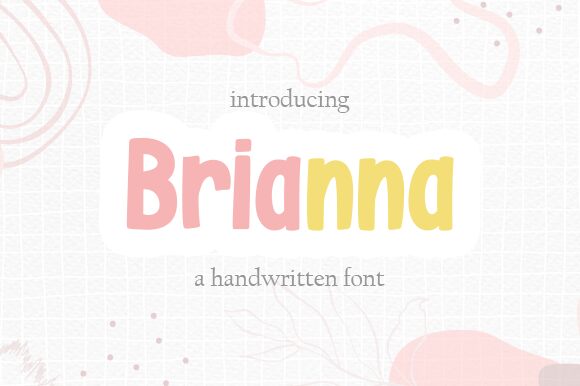
Brianna
Introducing Brianna, a narrowcartoon-style display font from Aldi Raya Pradipta. Perfect for creative projects such as comic books, movie posters and children's books. Unleash your imagination with this unique font!